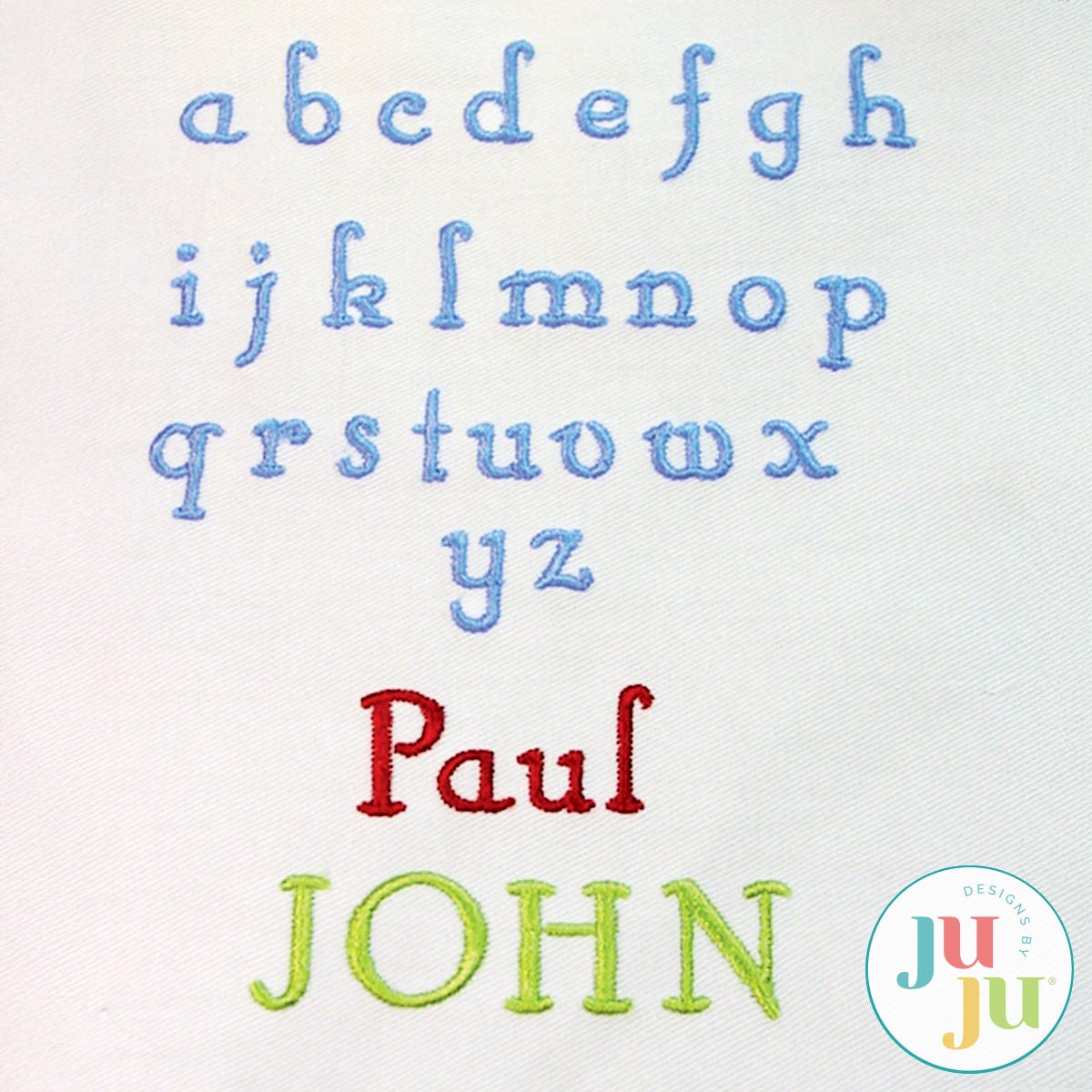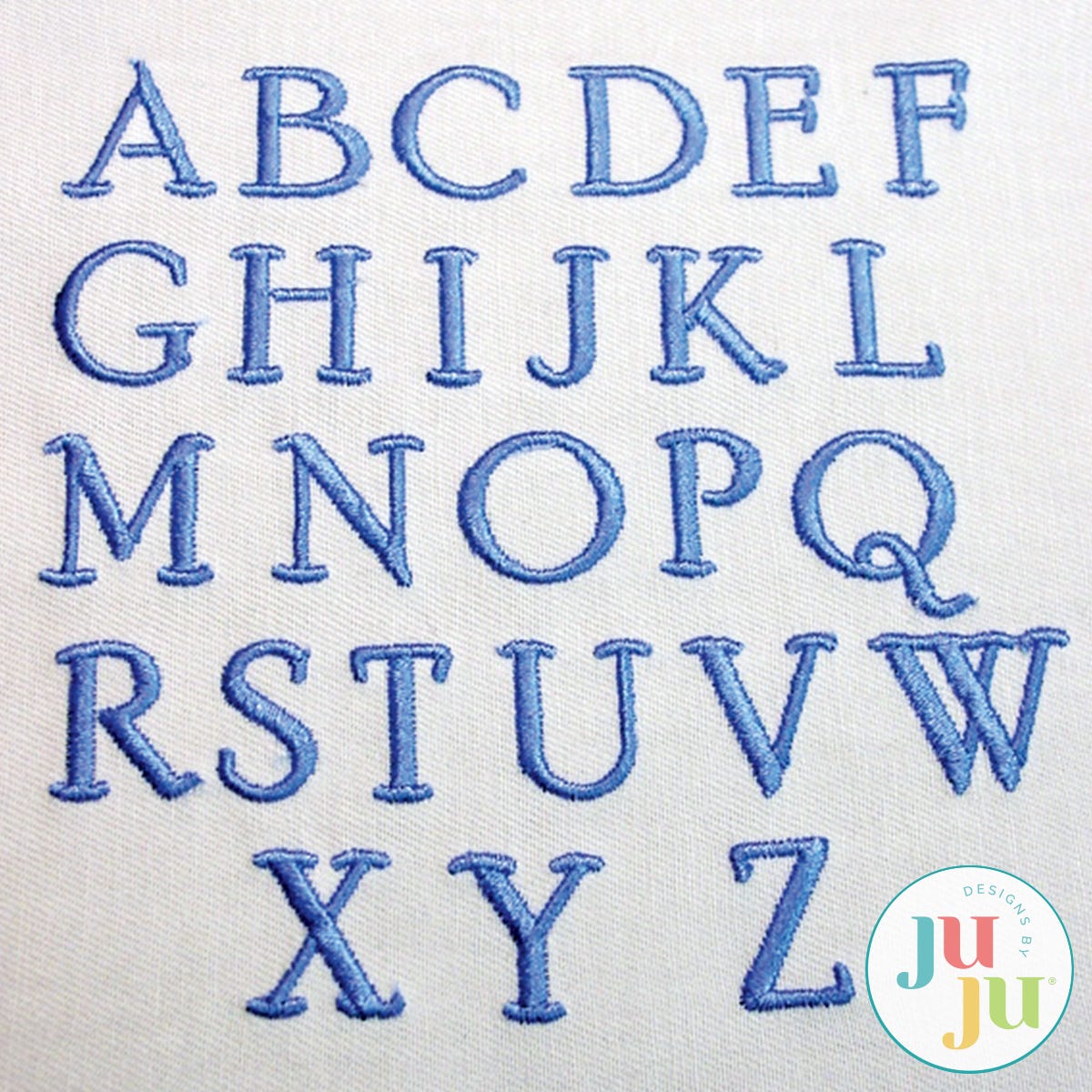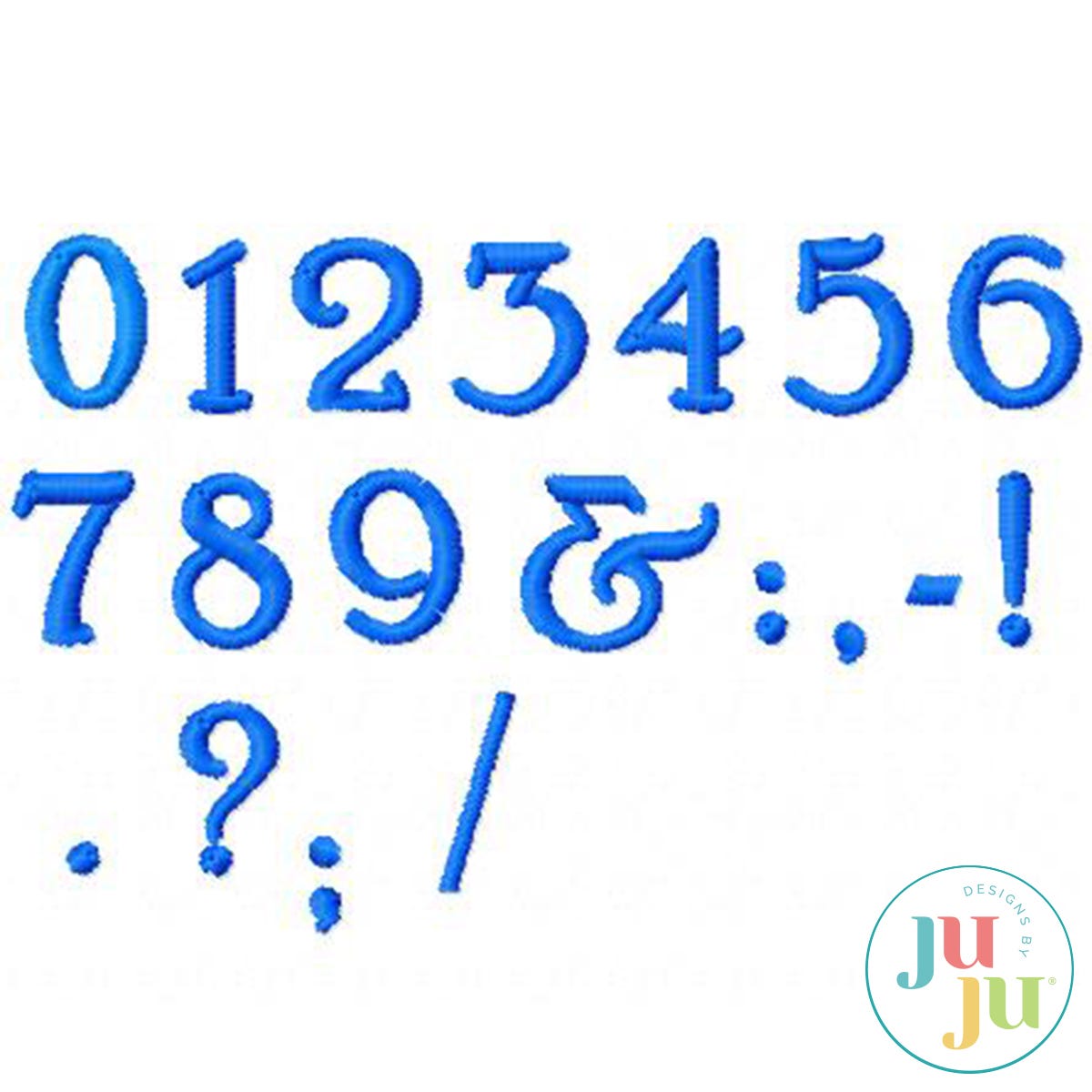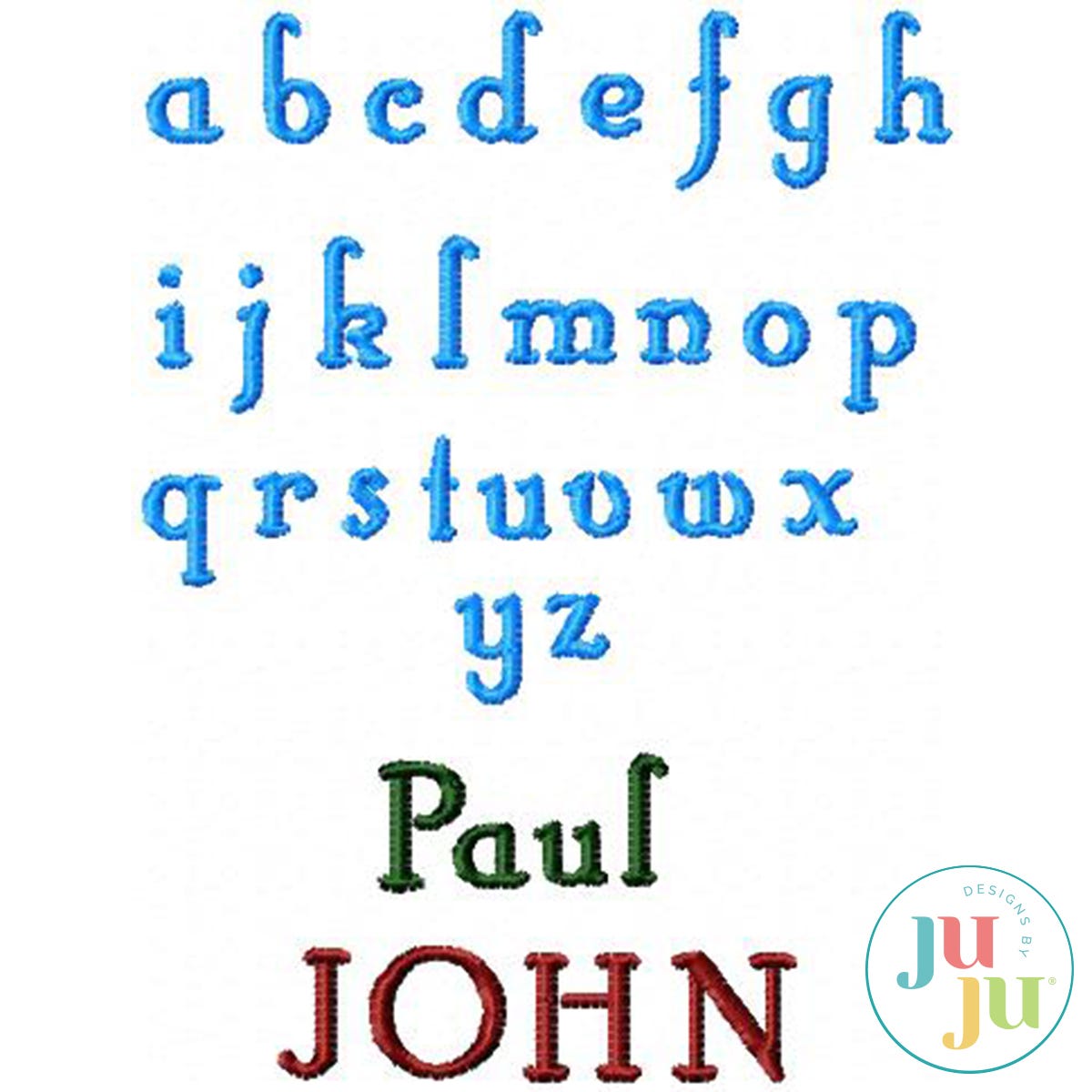
Hobby Horse Satin Stitch Embroidery Font by Oma's Place
This versatile alphabet comes in two sizes, approximately 1.75" tall and 0.75" tall. Both offering excellent readability and a clean, concise look. Despite the smaller size, the lettering remains clear and slightly chunky, adding a subtle masculine touch that works beautifully for both little guy’s and big guy’s projects. You’ll be pleased with how smoothly this font stitches out.